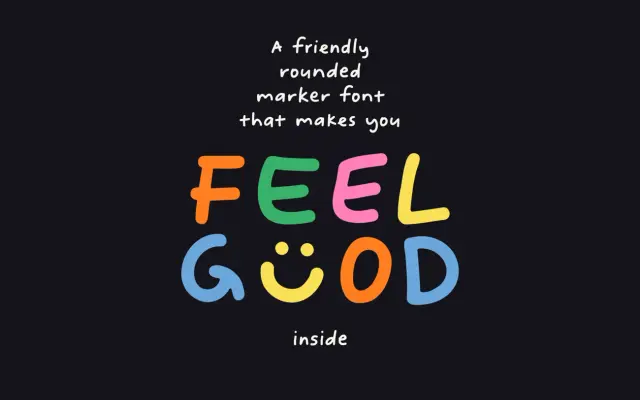
Mrs Pickles
A rounded, hand-drawn marker font with three alternate character sets for A–Z, a–z and 0–9, aimed at playful branding and packaging.
Mrs Pickles is a marker-style script with rounded edges and an informal, hand-drawn character suited to children's products, pet stores and feel-good packaging. Three unique character sets for uppercase, lowercase and numerals give designers variety within a single weight. Multi-lingual support extends its reach beyond English-language projects.
A hand-drawn marker-style font with rounded edges and playful character, placing it firmly in the informal script category with a casual, brush-marker subcategory.